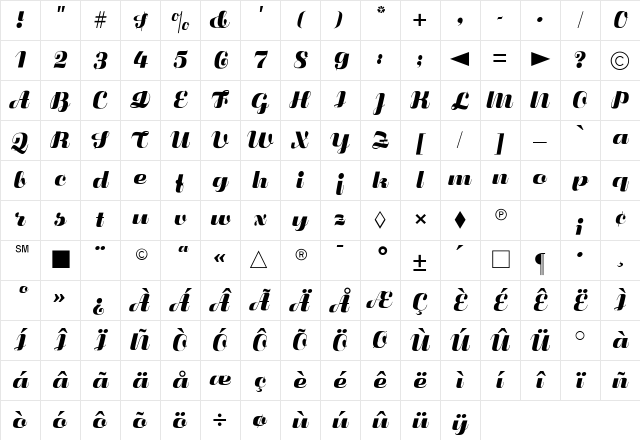
Complete CgFluidumBd Medium glyph index. Displaying only characters natively supported by CgFluidumBd Medium font.
CgFluidumBd is a composed and adaptable typeface that performs quietly and consistently across a wide range of design contexts.